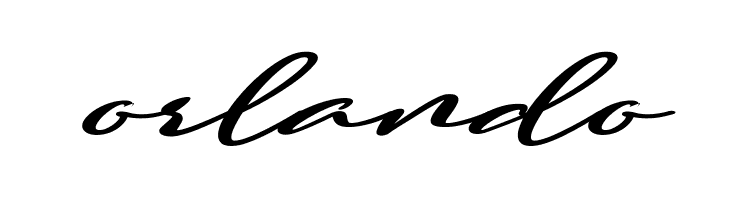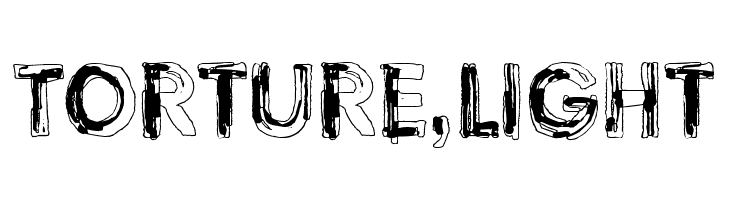
A bold, decorative font with intricate patterns and a striking visual style.
A bold, calligraphic font with dramatic strokes and sharp edges.
A classic serif font with modern angular details and balanced curves.
A playful, handwritten font with a whimsical and casual style.
A bold, brush-style font with dynamic strokes and a hand-drawn appearance.
A bold, textured brush-style font with dynamic, slanted characters.
A bold, italic handwritten font with a dynamic, marker-like style.